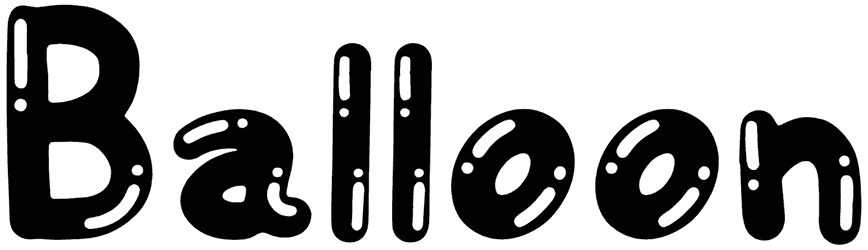
Balloon Font
Since a good font must be cohesive with the content of a graphic project, we recommend you to pick up a cartoon font such as Balloon for designing exclusive artwork for children, including illustrations, storybook covers, stickers, educational brochures, or social media posts. This balloon font can soften your works by adding a sense of love, delicacy, joy, or childishness.